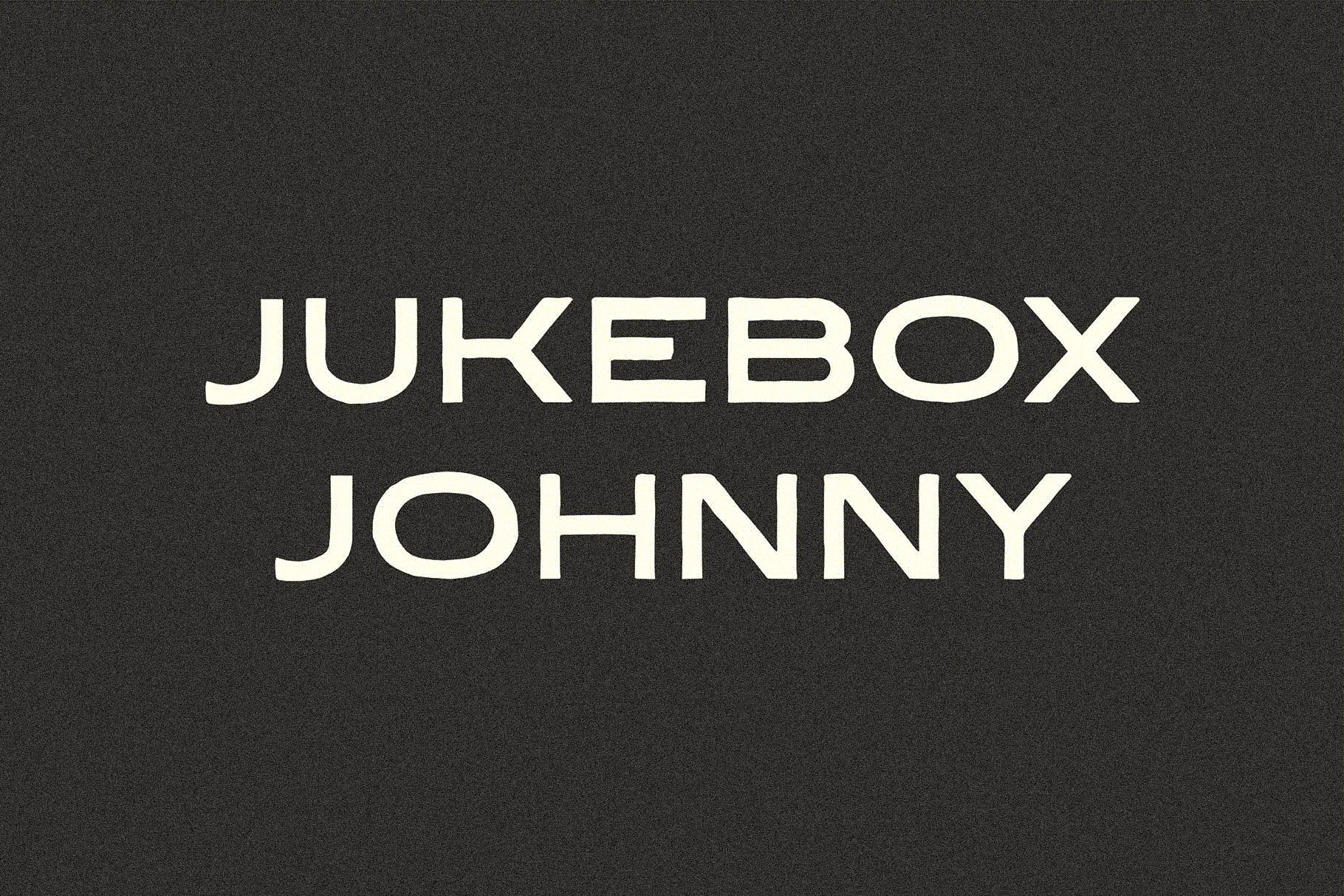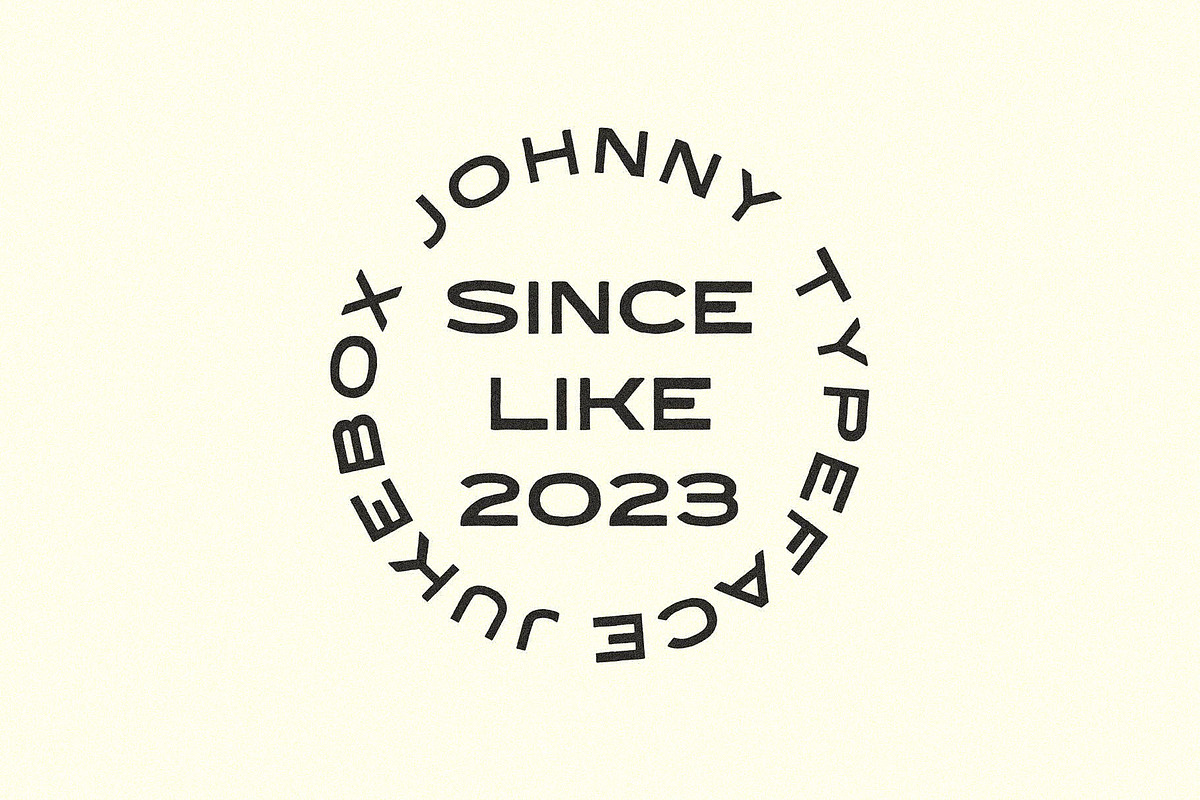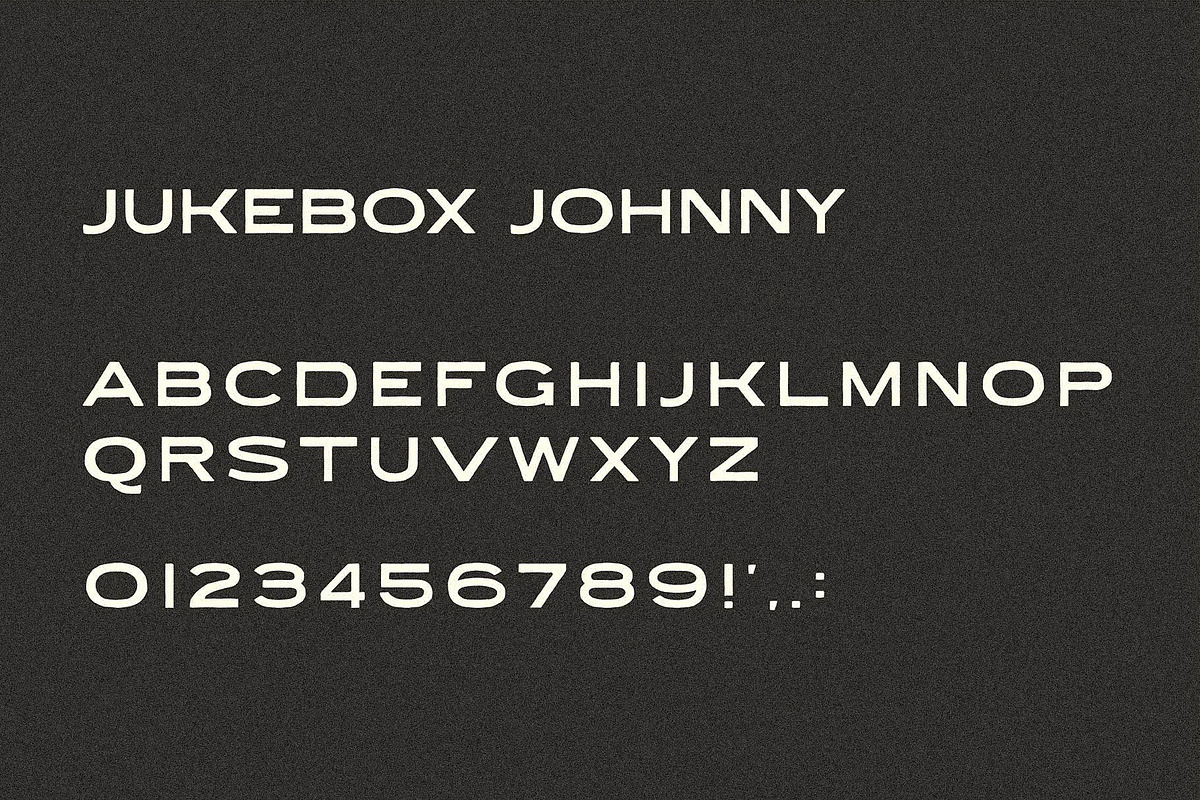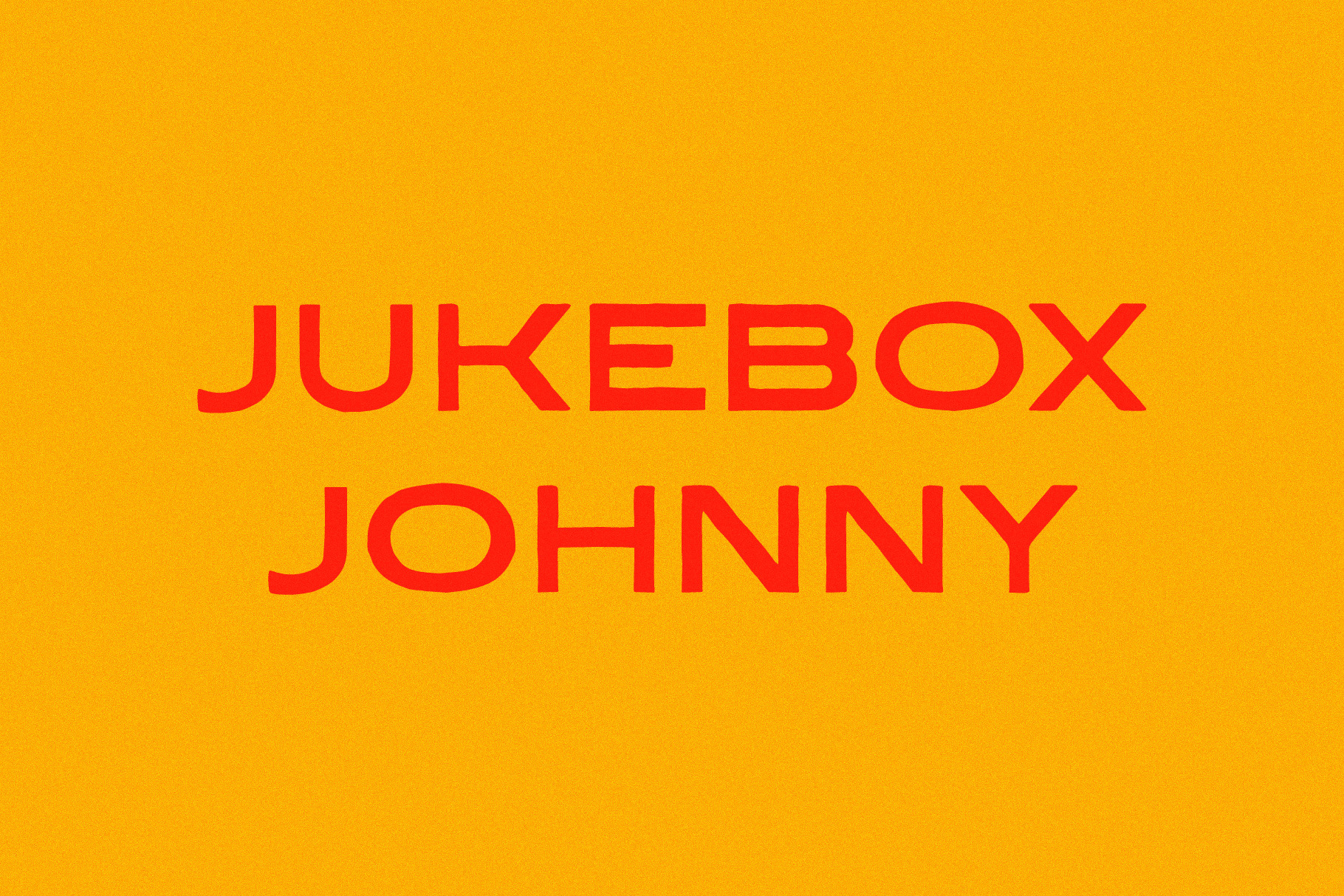
Jukebox Johnny I A Sans Serif Font
This one’s got vintage energy, but it’s not stuck in the past.
Jukebox Johnny is a wide-set sans with soft curves, balanced structure, and enough variation to keep things from getting dull. Great for headlines, packaging, or anything needing some quiet confidence.